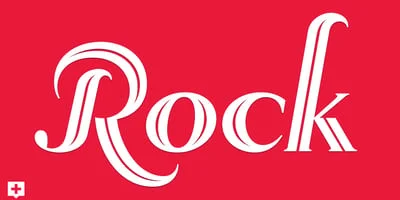
Rhythm Font
Rhythm Font is ideal for musical design projects including recording studios, music production companies, rhythm instrument manufacturers, dance studios, music education programs, beat-making software, percussion ensembles, and rhythmic entertainment campaigns. This dynamic typeface works perfectly for drum schools, metronome manufacturers, music therapy centers, dance academies, and projects that celebrate the fundamental importance of rhythm in music creation and human movement expression.
What makes Rhythm Font exciting is its dynamic rhythmic character that perfectly captures the essence of musical timing and beat synchronization. The font features flowing letterforms with rhythmic spacing that reflects the natural pulse and temporal patterns found in musical composition. Its musical design elements embody the spirit of rhythmic precision and temporal harmony, making it perfect for projects that need to convey movement, timing, and connection to musical rhythm. The carefully crafted beat-inspired proportions create an atmosphere of musical sophistication and rhythmic authenticity.
Rhythm Font comes in multiple family variations including rhythmic, musical, dynamic, and beat styles. Each weight maintains the distinctive rhythm character while offering different levels of musical intensity and rhythmic presence. The font family includes musical alternates, rhythm ligatures, and beat variations that provide designers with comprehensive options for creating truly dynamic and authentically musical typographic compositions that celebrate rhythmic excellence.
Whether you're designing music branding, creating rhythmic marketing materials, or developing musical promotional graphics, Rhythm Font provides the perfect typographic foundation for projects that celebrate musical excellence and rhythmic sophistication. This remarkable typeface transforms ordinary text into compelling expressions of musical wisdom and rhythmic energy. Download this dynamic font today and synchronize your design projects with the musical authenticity and rhythmic precision that captures the essential spirit of beat creation and temporal musical expression.